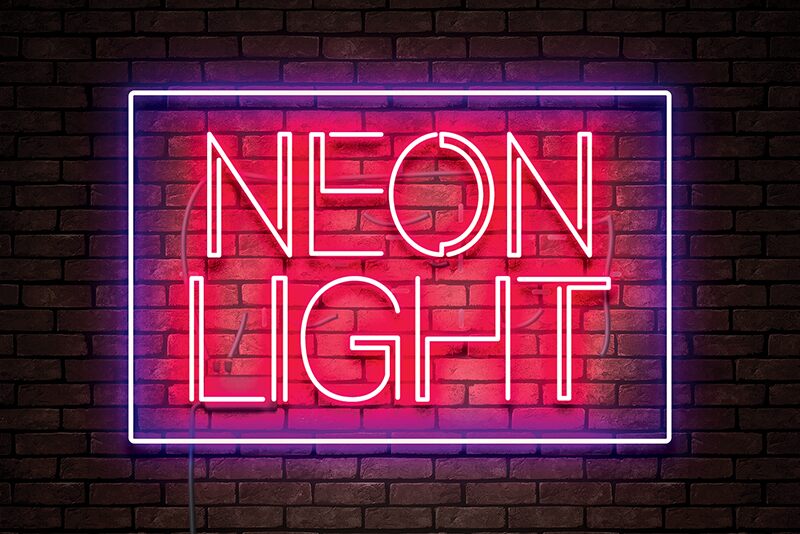
Neon Light
Neon Light by Erik Studio is a bold and cool display font that looks so modern and futuristic. Add this neon font to your creative ideas, and notice how it makes them stand out!